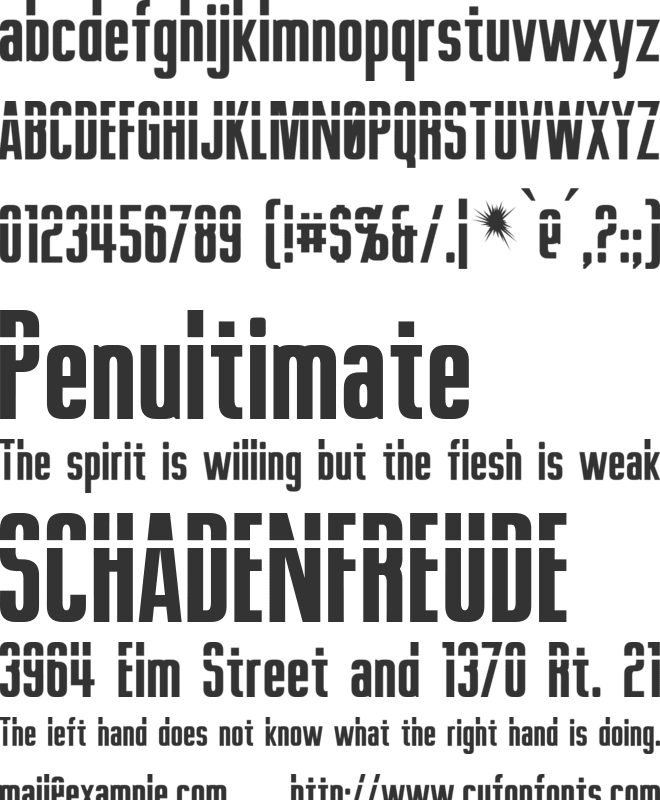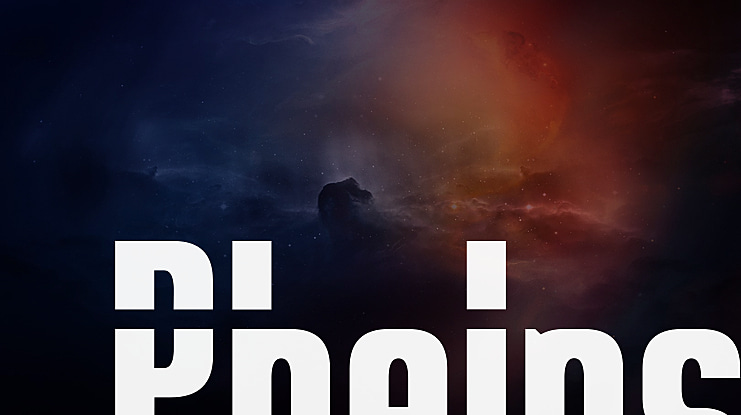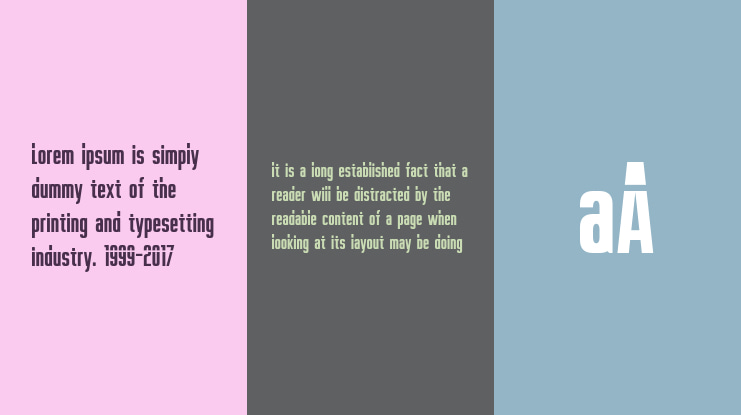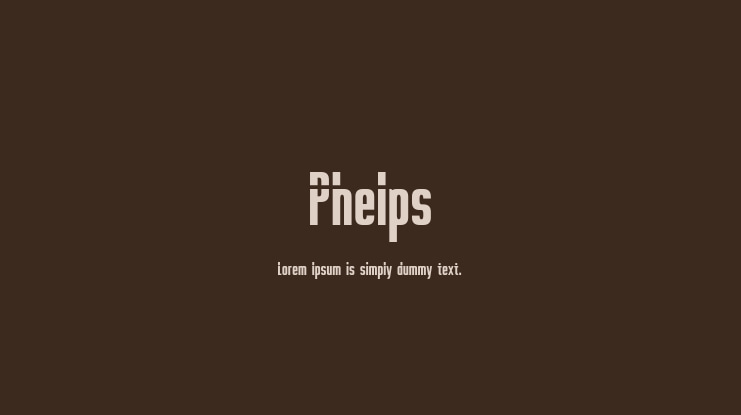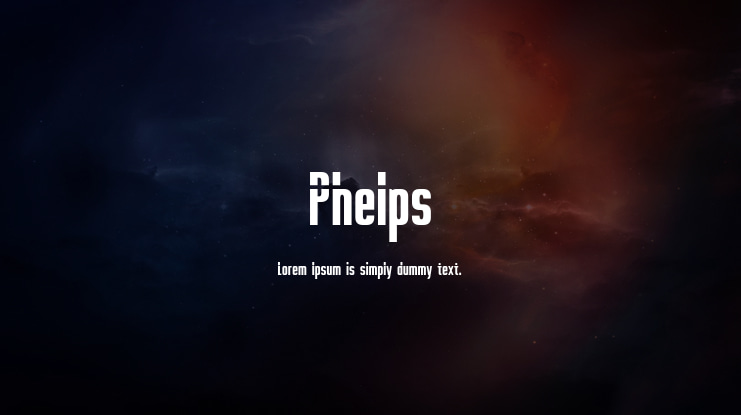
Phelps Font Family
Neale Davidson
Phelps is a tall and thin font with a sharp 'laser cut' appearing on all glyphs just above the lower-case line, based heavily on the Mission Impossible series of movies. Includes all Alpha-numerics, accent characters, and Euro. Asterisk is replaced with 'fuse light' glyph. Includes regular, italic, bold, and bold-italic weights.